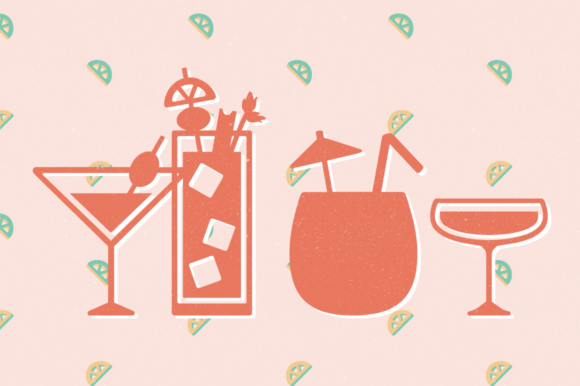
Introducing the Bar Book Font: A Cocktail-Themed Dingbat Font
The world of typography has witnessed a significant transformation over the years, with designers continually pushing the boundaries of creativity and innovation. One such remarkable addition to the realm of fonts is the Bar Book Font, a cocktail-themed dingbat font that has been making waves in the design community. In this article, we will delve into the unique features of the Bar Book Font, its applications, and why it has become a favorite among designers and typography enthusiasts.
The Concept Behind Bar Book Font
The Bar Book Font is a meticulously crafted dingbat font that embodies the spirit of a cocktail bar. The brainchild of a creative designer, this font is inspired by the various elements that make up a typical bar, including glassware, bottles, drinks, accessories, and garnishes. What sets the Bar Book Font apart is its clever use of letters and numbers to represent these elements, making it a versatile and fun font to work with.
Key Features of Bar Book Font
The Bar Book Font boasts an impressive array of features that make it a standout in the world of typography. Here are some of its key characteristics:
- Cocktail-Themed Glyphs: The font includes an assortment of glyphs that represent various cocktail glasses, bottles, and drinks. Each glyph is intricately designed to capture the essence of a bar, making it perfect for designs that require a touch of whimsy and personality.
- Lowercase and Uppercase Letters: The Bar Book Font features a range of lowercase and uppercase letters that offer a diverse selection of glassware, bottles, and drinks. This allows designers to experiment with different combinations and create unique visual narratives.
- Numbers and Accessories: The numbers in the Bar Book Font include an array of accessories and garnishes, such as ice cubes, lemons, and umbrellas. These can be mixed and matched with the letters to create new and exciting combinations.
- Dingbat Font Style: As a dingbat font, the Bar Book Font uses symbols and glyphs instead of traditional letters. This makes it an excellent choice for designers looking to add visual interest to their work.
Applications of Bar Book Font
The Bar Book Font’s versatility and playfulness make it suitable for a wide range of applications. Here are some ways designers can use this font:
- Cocktail Menu Design: The Bar Book Font is perfect for designing cocktail menus that require a touch of elegance and whimsy. Designers can use the font to create visually appealing menus that showcase a bar’s offerings.
- Bar and Restaurant Branding: The font’s unique charm makes it an excellent choice for bar and restaurant branding. Designers can use the Bar Book Font to create memorable logos, signage, and advertising materials.
- Event Invitations and Promotions: The Bar Book Font’s cocktail-themed glyphs make it ideal for designing event invitations and promotions. Designers can use the font to create eye-catching invitations for cocktail parties, launches, and other events.
- Typography and Art Projects: The Bar Book Font’s creative possibilities extend beyond commercial applications. Designers and typography enthusiasts can use the font to create stunning typographic art pieces or experimental projects.
Why Designers Love Bar Book Font
The Bar Book Font has quickly become a favorite among designers and typography enthusiasts. Here are some reasons why:
- Unique and Playful: The Bar Book Font’s cocktail-themed glyphs and dingbat style make it a one-of-a-kind font that adds a touch of whimsy to any design.
- Versatile: The font’s range of glyphs and accessories makes it versatile and adaptable to various design applications.
- High-Quality Design: The Bar Book Font is meticulously crafted, with attention to detail and a focus on aesthetics.
The Bar Book Font is a cocktail-themed dingbat font that has captured the hearts of designers and typography enthusiasts. Its unique features, versatility, and playfulness make it an excellent addition to any design project. Whether you’re designing a cocktail menu, branding a bar, or creating a typographic art piece, the Bar Book Font is sure to bring a touch of whimsy and personality to your work.